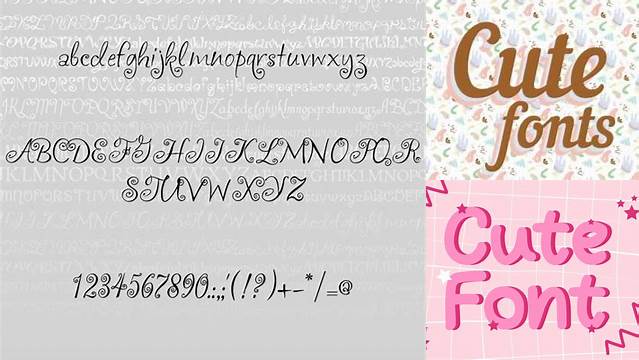
Android Cute Fonts: Download Guide & Tips
Hey guys! Ever feel like your Android phone is just…blah? You know, the same old font, the same boring look? Well, if you're nodding along, then you're in the right place! Today, we're diving headfirst into the amazing world of cute fonts for Android! I'm talking about fonts that'll make your texts pop, your Instagram stories shine, and your phone feel like a brand-new you! Get ready to ditch the drab and embrace the fab because we're about to find the best places to download some seriously adorable fonts.
Why Cute Fonts Are a Must-Have for Your Android
Okay, so why bother with cute fonts, right? What's the big deal? Well, let me tell you, guys, it's a total game-changer! First off, changing your font is one of the easiest and most effective ways to personalize your phone. It's like giving your digital life a fresh coat of paint. When you switch to a cute font, you're not just changing the way you read; you're changing the vibe! Think about it: the right font can express your personality, whether you're into playful vibes, sophisticated elegance, or something totally unique. And let's be honest, who doesn't love a little bit of customization? It's your phone, your rules! Beyond the aesthetic appeal, cute fonts can actually improve your user experience. Some fonts are designed to be extra readable, which is a win for everyone, especially if you're someone who spends a lot of time staring at their screen. Plus, a cute font can make your phone feel more enjoyable to use. It's a small detail that makes a big difference in your overall experience. It is time to ditch the boring standard fonts and explore a world of creativity. Seriously, there are so many cool options out there – from bubbly and whimsical to elegant and artistic.
When it comes to expressing your personality, a cute font is a simple yet effective tool. It's like choosing the perfect outfit for your phone. You can match your font to your mood, to the season, or even to your favorite hobbies. Are you a fan of all things kawaii? There's a font for that! Do you love vintage vibes? There's a font for that too! The possibilities are endless, and the best part is that it's all at your fingertips. So, if you're ready to transform your Android phone into a visual masterpiece, then you're in the right place. Let's dive in and explore the world of cute fonts! Remember, finding the perfect font can be an exciting journey of self-expression, and it is super easy to download and install! Get ready to fall in love with your phone all over again! Embrace the fun, the creativity, and the sheer joy of personalizing your digital space. Let's make your Android phone a true reflection of you!